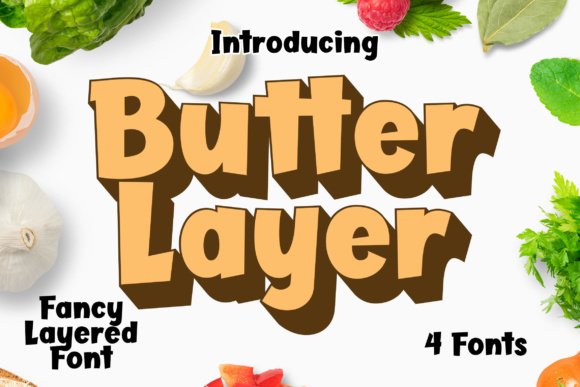
The Perfect Touch: Unleashing the Magic of the Butter Layer Font
Remember that moment when you’re brainstorming ideas for a design project and you just can’t seem to find the right font to tie everything together? You’ve tried every sans-serif and serif, every script and bold, but nothing seems to capture the essence of your vision. That’s when you stumble upon the perfect solution – a font that adds a touch of whimsy and sophistication to your design.
| 👤 Author | Lettersiro Co. |
Enter the Butter Layer Font, a beautifully layered and fancy font that’s perfect for adding a dash of personality to your projects. With its versatility and charm, the Butter Layer Font can be used for everything from logos and posters to menus and educational materials. Whether you’re a seasoned designer or just starting out, this font is sure to become a go-to favorite in your design toolkit.
Butter Layer Font Key Features
- Size: 1,200 glyphs, including Latin, Cyrillic, and Greek alphabets, as well as various punctuation and special characters
- Resolution: Supports high-resolution displays at 300 DPI and above
- Unique Characteristics: Distinctive, layered design with subtle texture and gradient effects, creating a unique visual experience
- Language Support: Multilingual support, including Latin, Cyrillic, Greek, and various other languages
- Font Styles: Available in Regular, Bold, Italic, and Bold Italic weights
Butter Layer Font Review
As a designer, I was excited to try out the Butter Layer Font. I have to say, it’s a pretty unique and eye-catching font. ✨ The subtle gradient effects and layered design elements give it a nice depth and visual interest. The font is also highly customizable, which is a major plus.
- Unique design style that sets it apart from other fonts
- Highly customizable for a range of design applications
- Subtle gradient effects add a nice touch of sophistication
However, there are some limitations to consider. ⚠️ The font can be a bit overwhelming if used in large blocks of text, and the layered design elements can make it difficult to read at smaller sizes. Additionally, the font file size is a bit larger than average, which may be a concern for web designers.
Overall impression:
Overall, I think the Butter Layer Font is a great choice for designers who want to add some visual interest to their projects. With a little caution and consideration for its limitations, it can be a great tool in the right situations.
Tip: Use the Butter Layer Font in conjunction with a subtle background image to create a visually appealing design.
Tip: Use the Butter Layer Font in combination with a bold outline to create a striking visual effect.
Tip: Use the Butter Layer Font in headings to create a clear and organized visual hierarchy.
The Butter Layer Font is ideal for:
- Wedding and event invitations
- Blog and social media graphics
Remember to use the font in moderation and balance it with other design elements to avoid visual overload.
Sofia Pro
Sofia Pro is a geometric sans-serif font designed for modern interfaces. It’s a great choice for designers who want a font that’s both stylish and readable. When to use: Use Sofia Pro for modern and trendy interfaces, like fashion websites, design blogs, or tech startups. It’s a good alternative to Butter Layer Font for projects that require a bold and eye-catching look.
Comparison: Sofia Pro has a more geometric and modern feel compared to Butter Layer Font, which has a more traditional and layered look. Sofia Pro is also more suitable for projects that require a bold and attention-grabbing look.